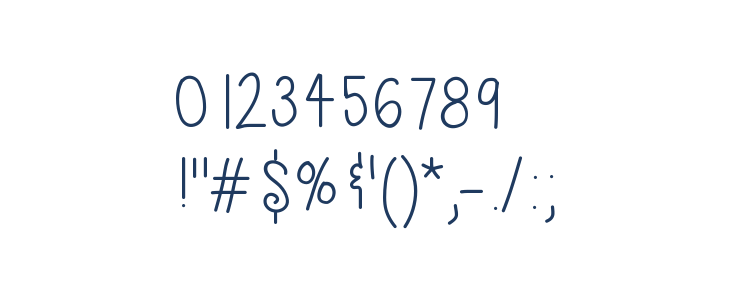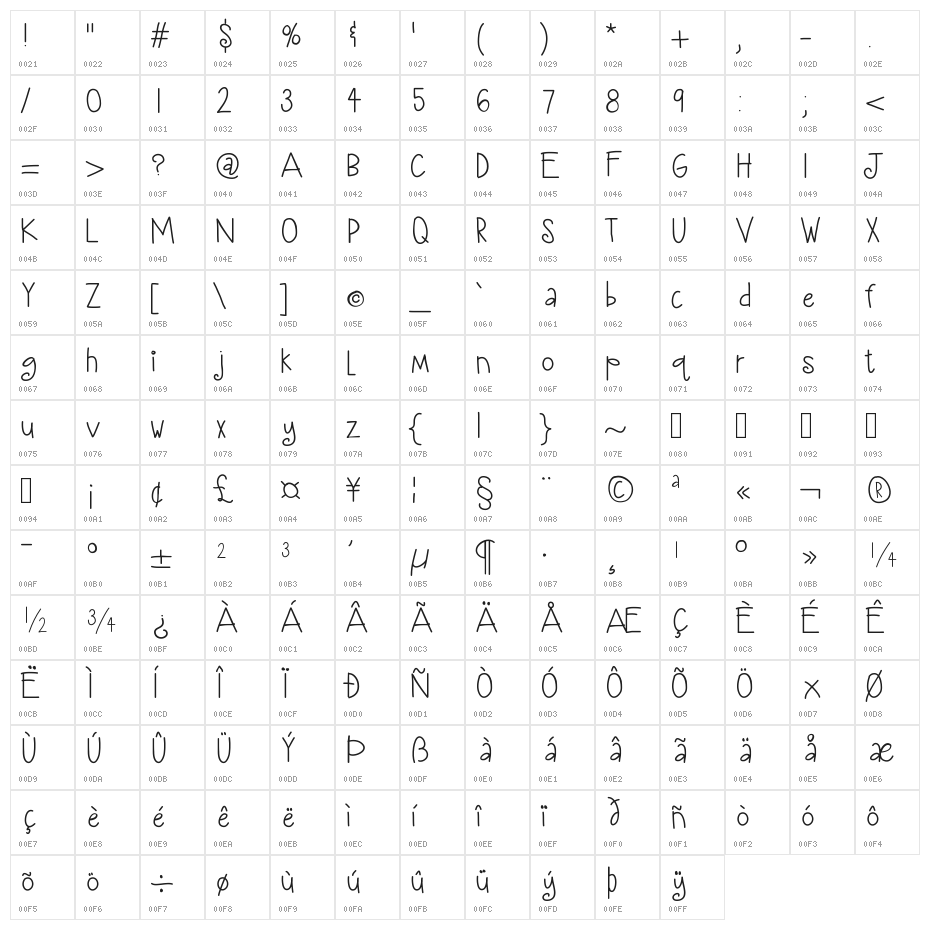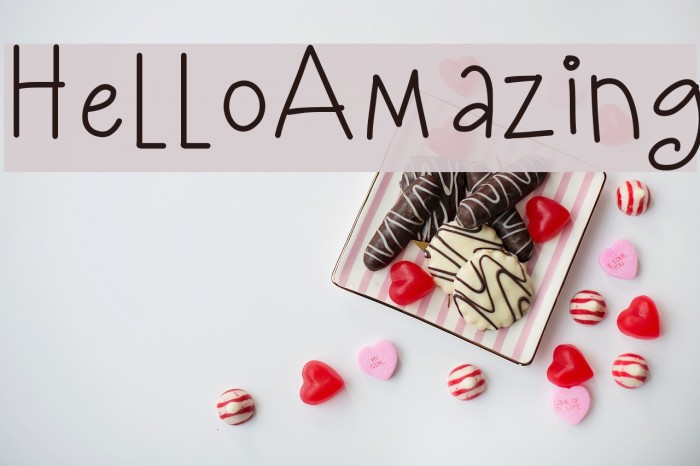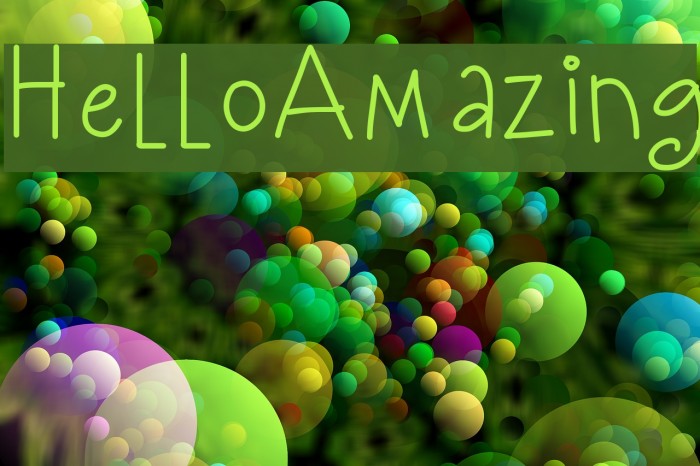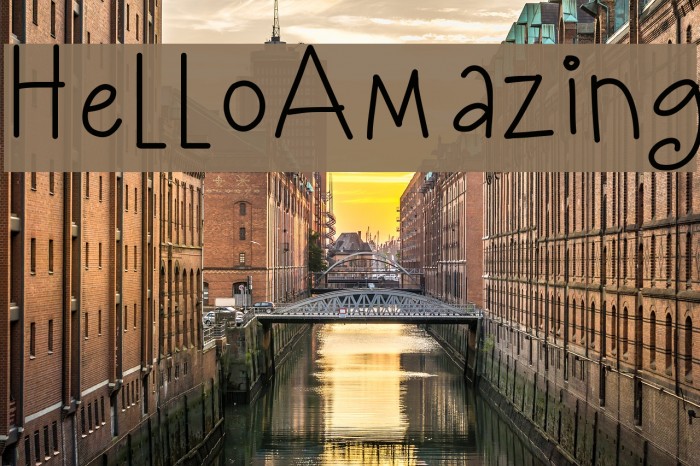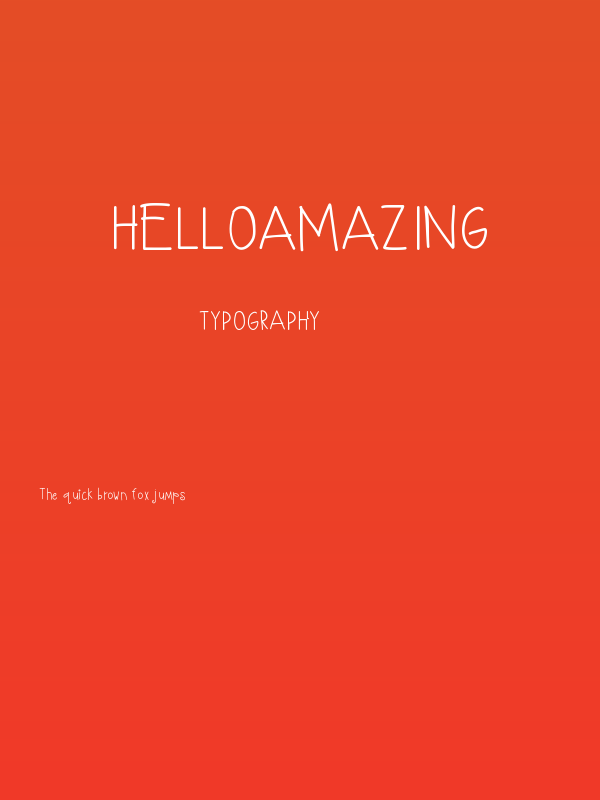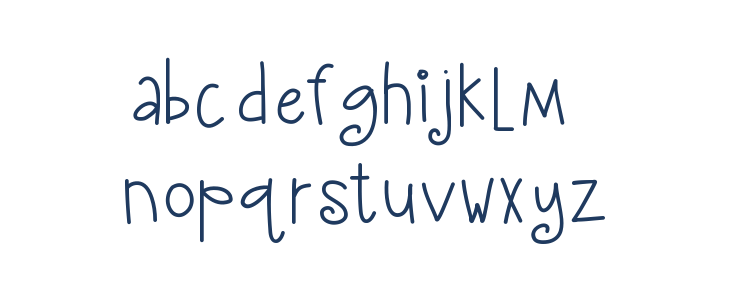
HelloAmazing Font
HelloAmazing Description
This playful and whimsical font features a handwritten style with a casual and friendly appearance. The characters are slightly irregular, adding a personal touch that mimics natural handwriting. The strokes are consistent in width, providing a uniform look across all characters. The font includes both uppercase and lowercase letters, numerals, and a variety of special characters, making it versatile for different uses. Its informal style is perfect for projects that require a personal or creative touch, such as greeting cards, invitations, or children's books.
| Overall Style | Casual, Playful |
| Use Case | Headlines, Creative projects |
| Proposed Projects | Ideal for greeting cards, invitations, children's books, and creative projects. |